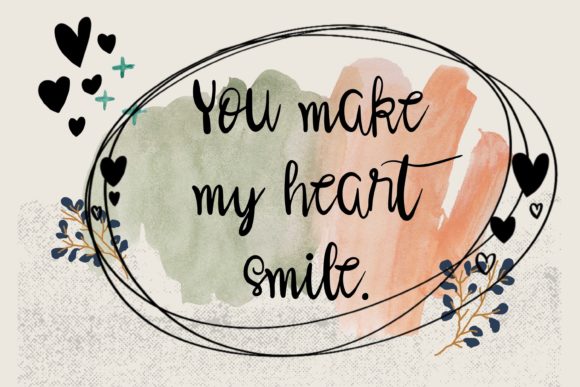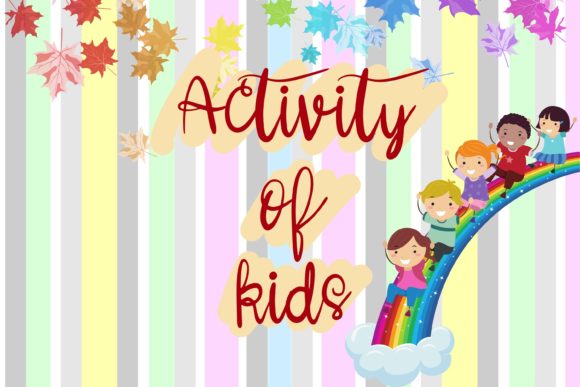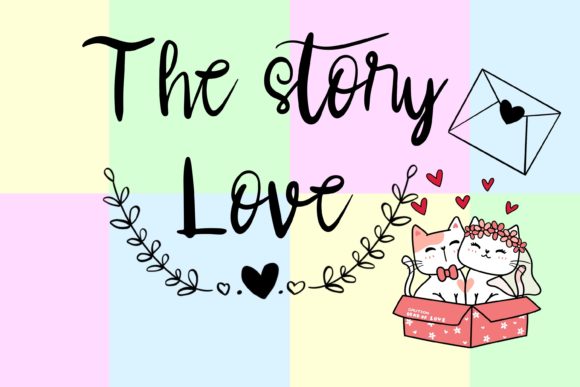
Introduction to Maple Leafs Font
Have you ever been working on a creative project and suddenly, the perfect font pops into your mind? For me, it was during a late-night design session, trying to come up with a fun and playful logo for a children’s game. I was browsing through design resources, searching for that special something that would make my design stand out. That’s when I stumbled upon the Maple Leafs Font – a chic, handwritten font that seemed to capture the essence of whimsy and fun.
As a designer, I know how valuable it is to have high-quality fonts at our disposal. The Maple Leafs Font is not only free to download, but it also offers a transparent background, making it a versatile design resource for any creative project. Whether you’re working on a cartoon, a children’s game, or just a simple design that needs a lovely touch, this font is sure to impress.
Maple Leafs Font
- High-quality, free download font ideal for creative projects.
- Features a transparent background, making it easy to use in various design scenarios.
- Includes a range of unique, custom-designed characters and glyphs that reflect the spirit of the Toronto Maple Leafs.
- Designed to be highly legible, with clear and crisp letterforms suitable for both digital and print applications.
Honest Review: Maple Leafs Font
I recently stumbled upon the Maple Leafs Font, a free download that has caught my attention as a potential design resource for various creative projects. Upon closer inspection, I was impressed by the font’s high quality and versatility.
- Unique and elegant design, perfect for branding and logos
- Transparent background, allowing for seamless integration with other design elements
- Limited character set, which may not be ideal for complex text-based designs
Overall, the Maple Leafs Font is a solid addition to any designer’s toolkit. Its high quality and unique design make it an excellent choice for creative projects, especially those requiring a touch of elegance and sophistication. While it may have some limitations, it’s a free resource that’s definitely worth exploring.
Experiment with different font sizes and colors to create a unique design. Use the transparent background to create overlays or watermarks. Combine the Maple Leafs Font with other design elements to create a visually appealing design.
The Maple Leafs Font is perfect for sports-themed designs, such as hockey team logos or jerseys. It can also be used for creative projects, such as posters or flyers, that require a high-quality and unique font.